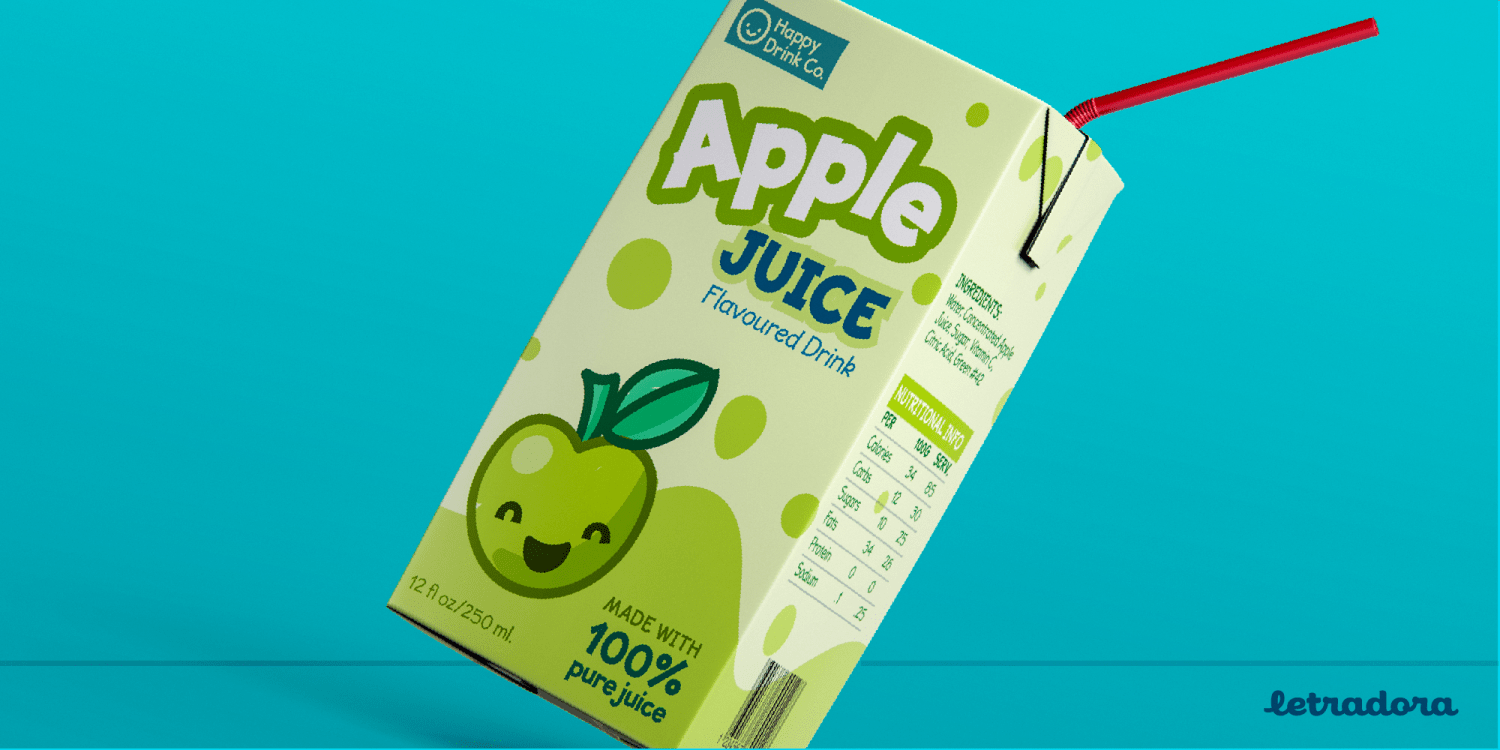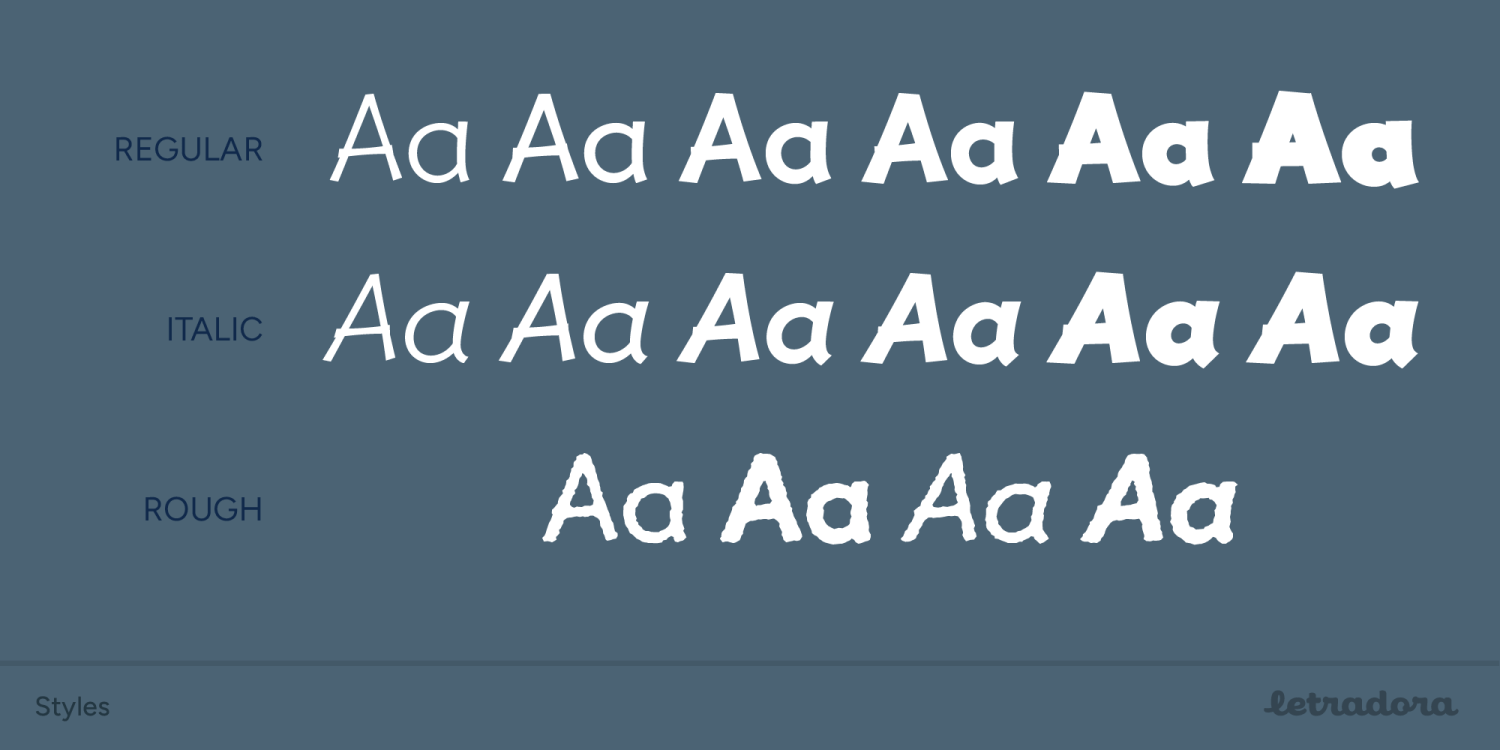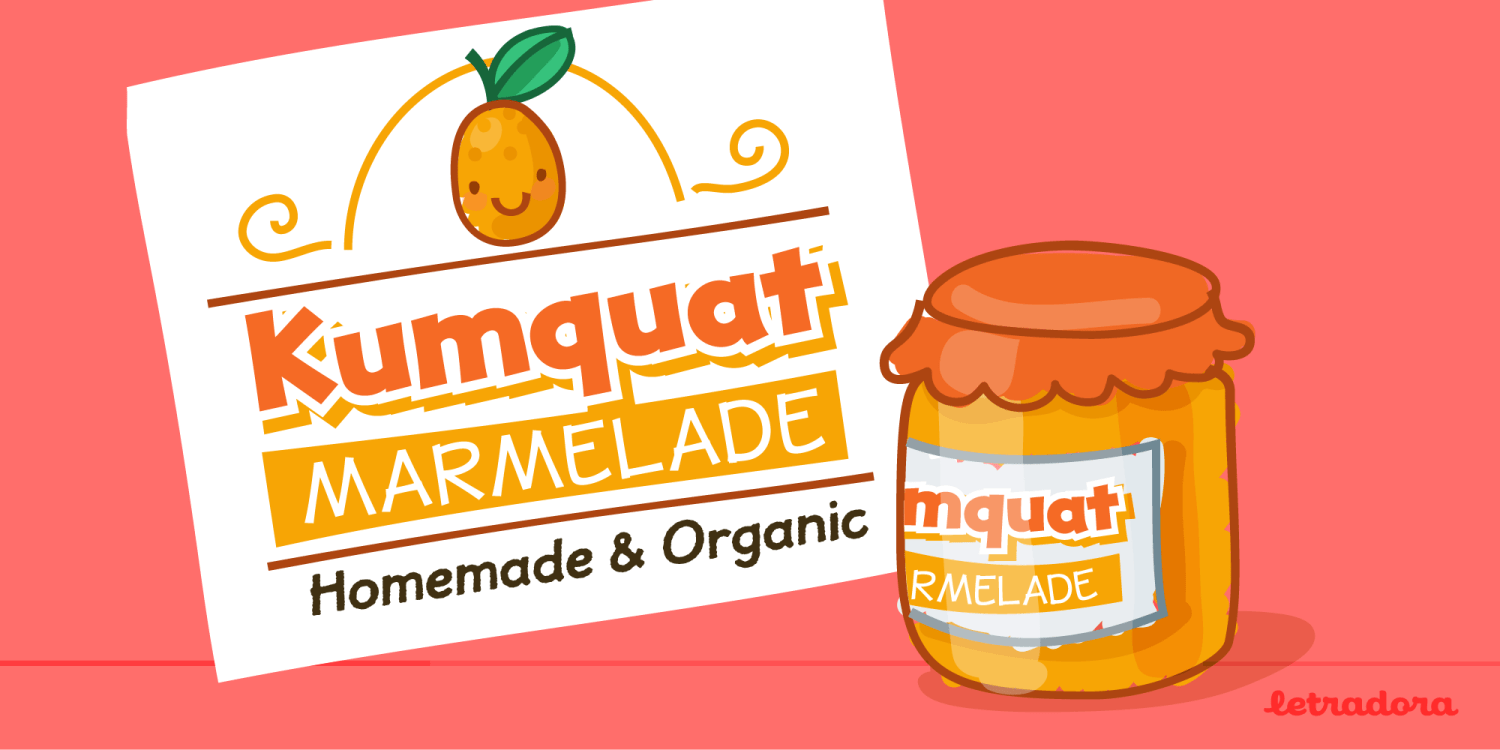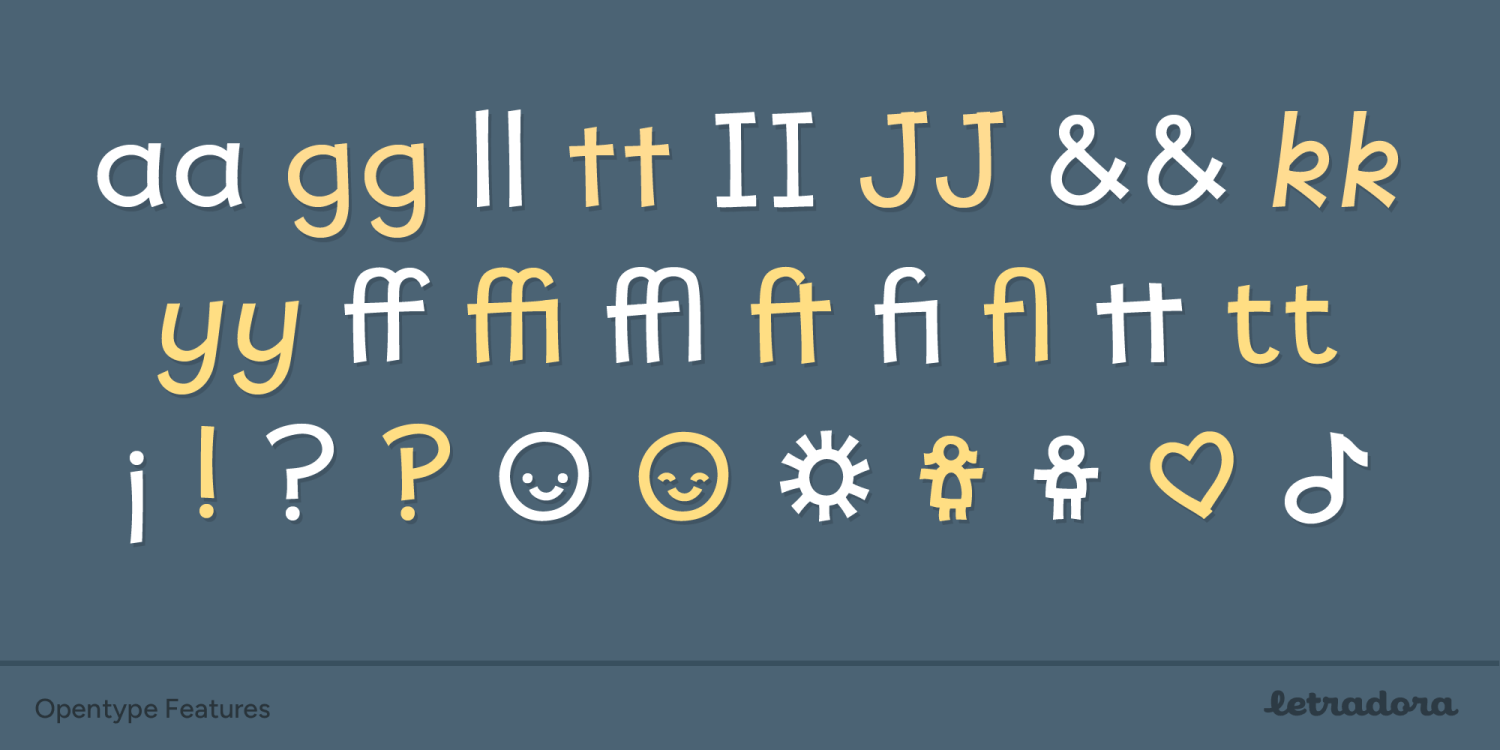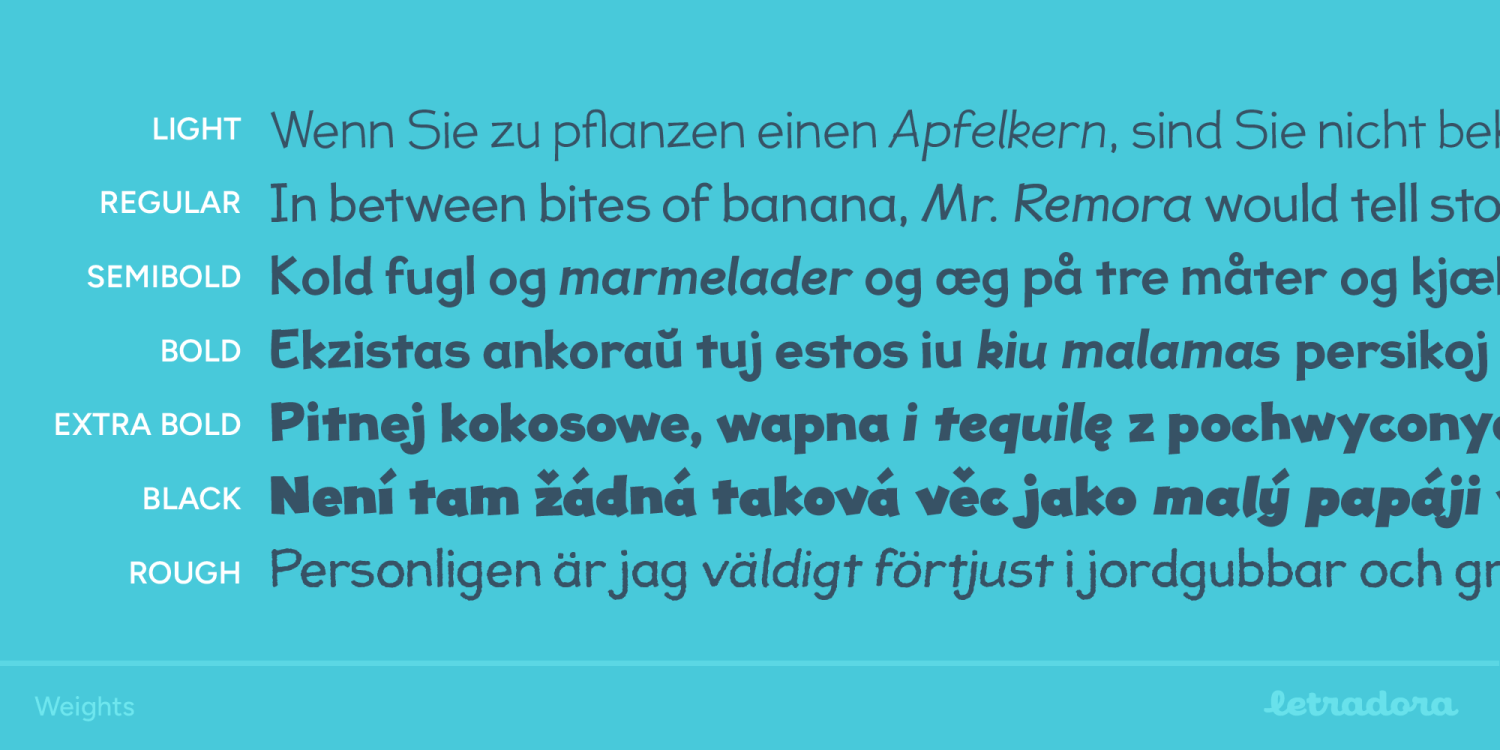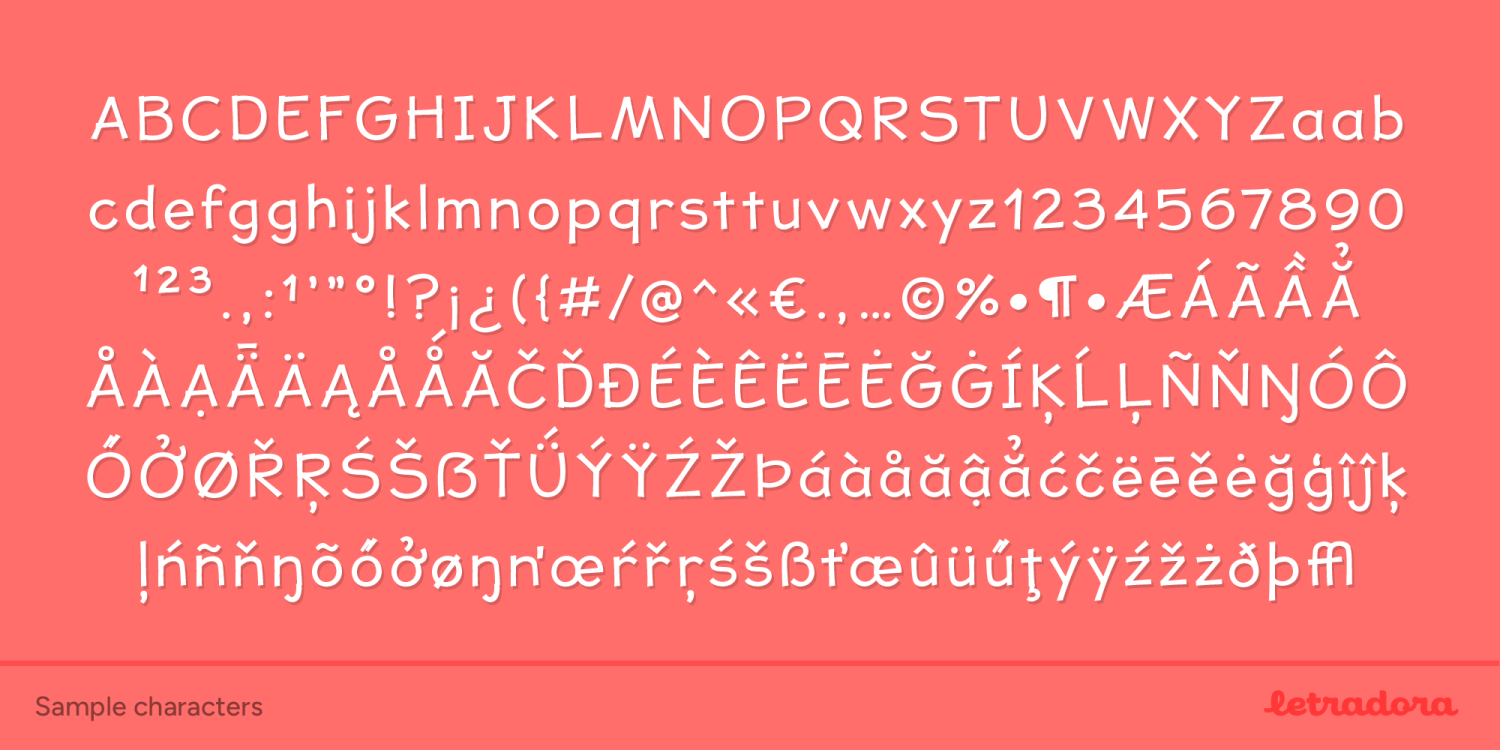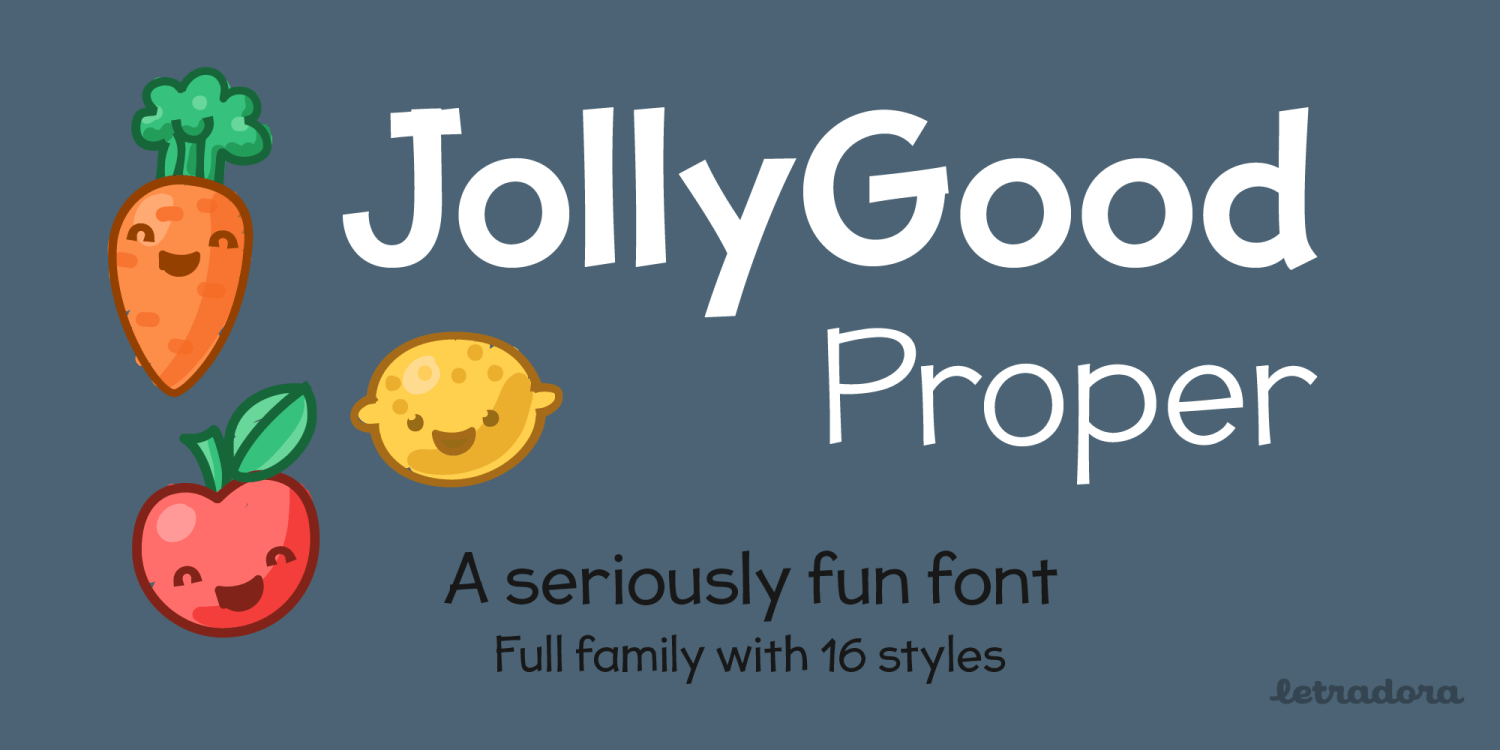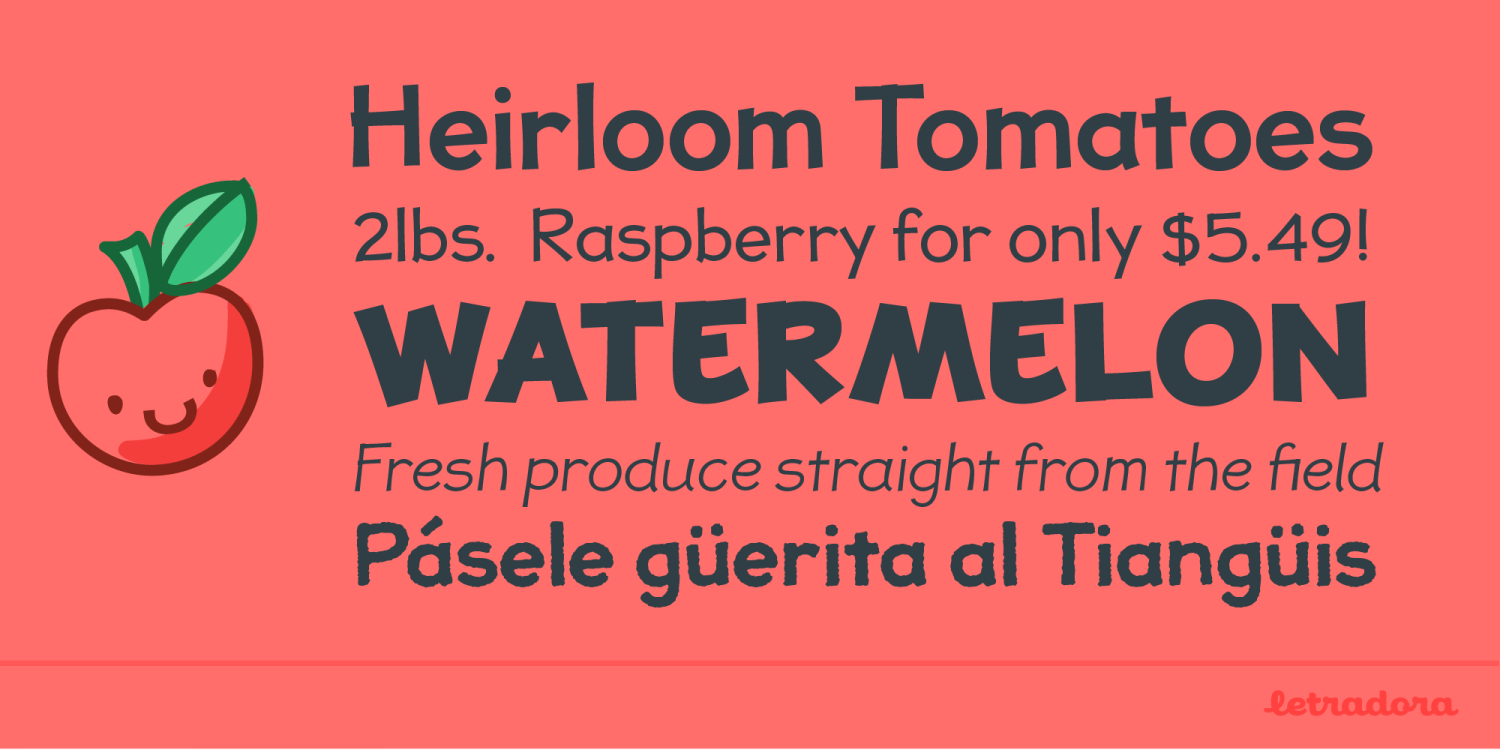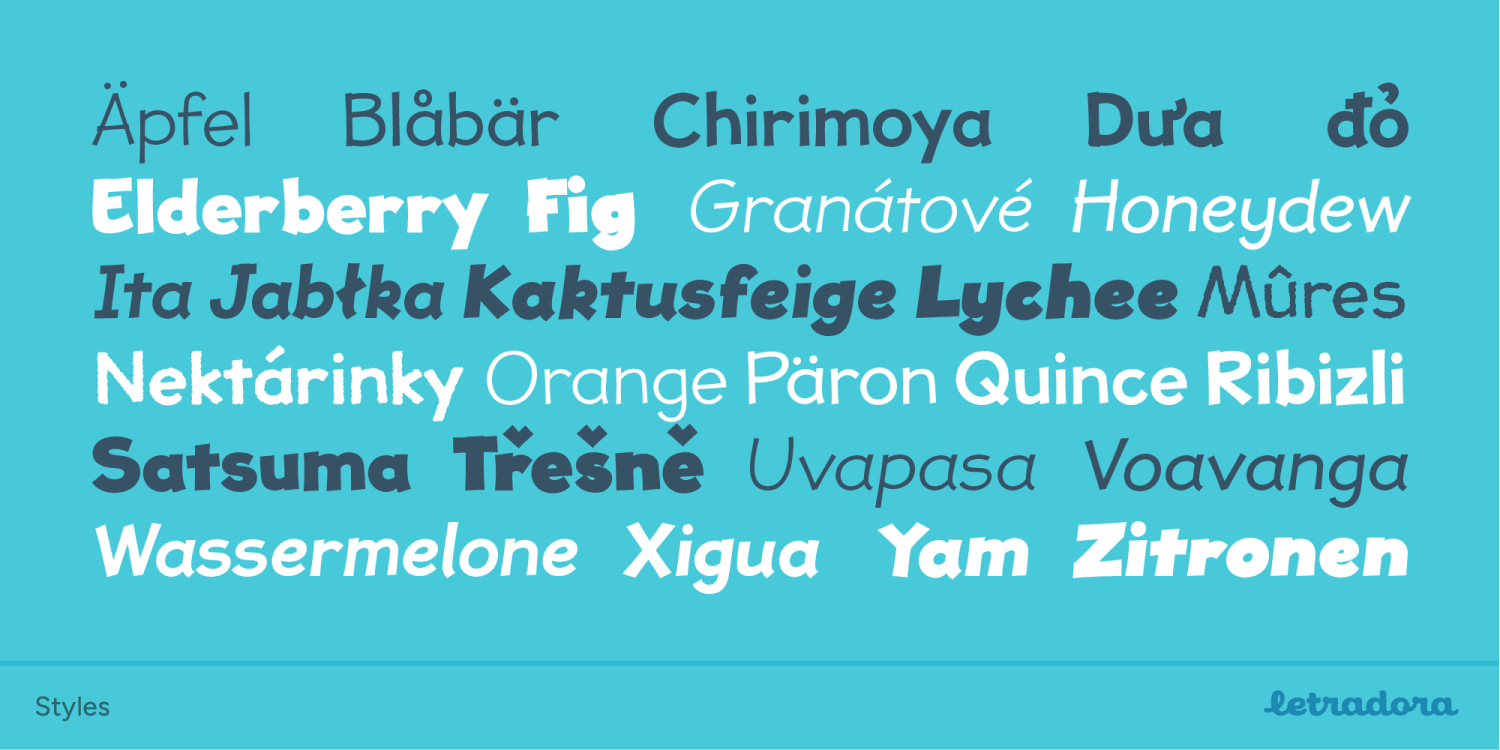
Jolly Good Proper
About Jolly Good Proper
JollyGood Proper is a fun, friendly typeface that is clean enough to use for longer texts. It is a complete family with 7 weights in regular and italic for a total of 16 fonts. It has an amazing character set, with support for most European languages,…